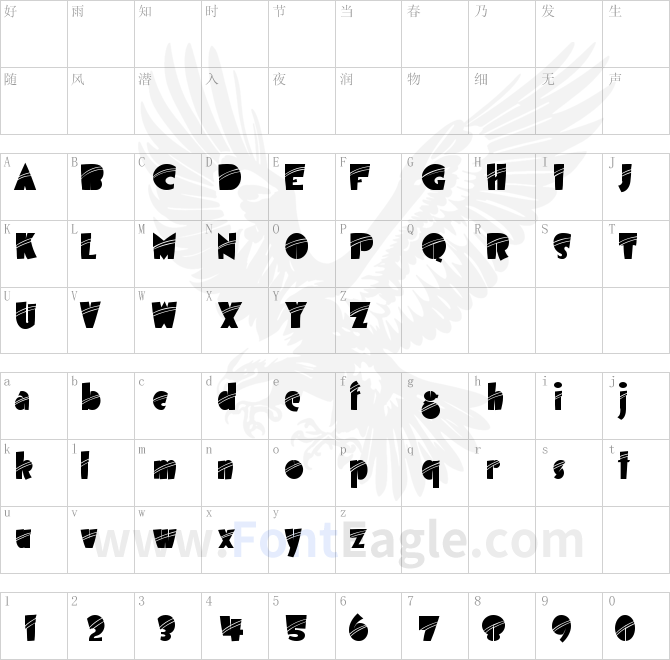
- Font name:Airmole Stripe
- Font Subfamily ID:RayLarabie: Airmole Stripe: 2000
- Font Full Name:Airmole Stripe
- Font Version:Version 1.0; 2000; initial release
- Postscript:AirmoleStripe